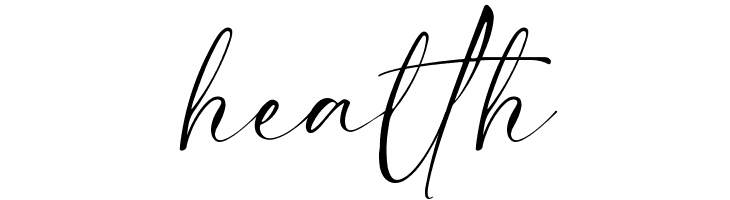
A bold, decorative blackletter font with intricate and ornate letterforms.
A whimsical, brush-style font with dynamic strokes and artistic flair.
A bold, expressive script font with a handwritten style.
A lively and elegant script font with flowing, interconnected characters.
A lively, elegant script font with flowing, interconnected letters.
A bold, playful handwritten font with rounded, irregular characters.
An ornate and decorative blackletter-style font with intricate details.
An elegant and ornate script font with flowing, cursive characters and decorative flourishes.
An elegant script font with flowing, interconnected letters and decorative flourishes.
A bold, geometric font with circular cutouts for a playful, modern look.
A modern, geometric sans-serif font with excellent readability and versatility.
A bold, modern sans-serif font with thick, uniform strokes.
A bold, modern sans-serif font with clean lines and strong visual impact.
A modern, compressed sans-serif font with a clean and uniform appearance.
A bold, compressed sans-serif font perfect for impactful headlines.
A modern, bold, compressed sans-serif font with a clean and professional look.
A modern, compressed sans-serif font with an extra bold weight.
A modern, compressed sans-serif font with an extra light weight, ideal for minimalist designs.
A modern, compressed sans-serif font with a light and elegant style.
A modern, compressed sans-serif font with medium weight and tight spacing.
A modern, compressed sans-serif font with semi-bold weight and geometric design.
A modern, thin, and compressed sans-serif font with a clean and minimalist style.
A modern, clean, and condensed sans-serif typeface with a focus on readability.
A bold, condensed font with a modern and impactful style.
A modern, condensed sans-serif font with medium weight and excellent legibility.
A modern, condensed sans-serif font with uniform strokes and excellent readability.
A modern, condensed sans-serif font with a clean and professional look.